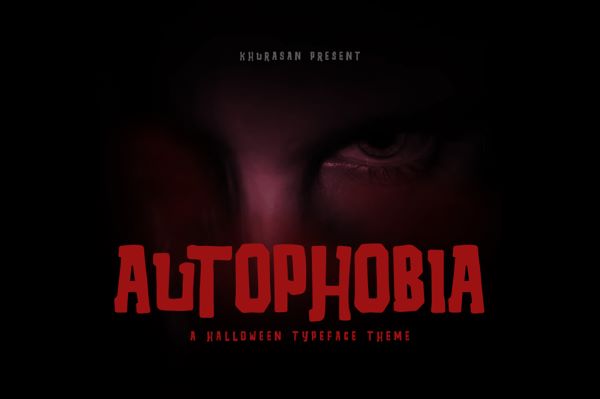
Autophobia Font
Autophobia by Khurasan is a free Halloween display font named after the fear of being alone — and its jagged, unsettling letterforms deliver exactly that sense of dread in typographic form. A genuinely freaky font with sharp, irregular strokes that feel drawn in panic rather than composure, it is perfectly suited for horror posters, Halloween event graphics, dark game assets, and any design that needs to communicate psychological unease. Available in both TTF and OTF formats. Free for personal use; commercial licensing via Creative Fabrica.